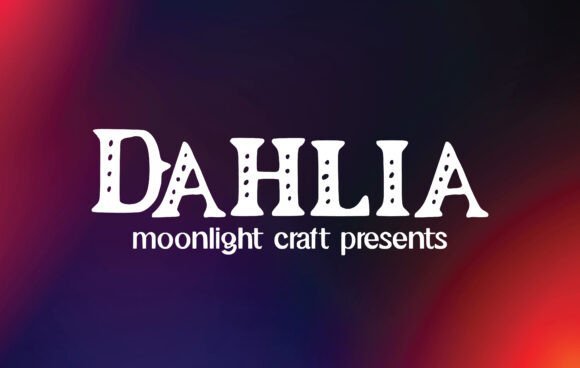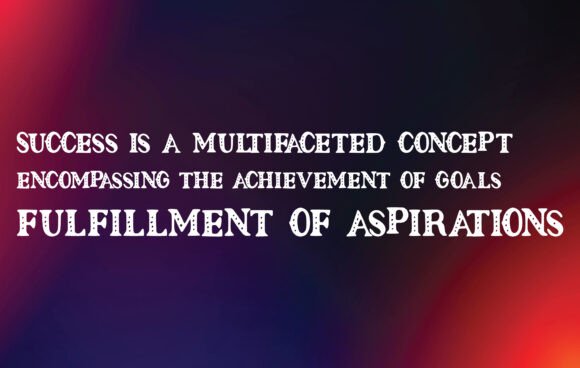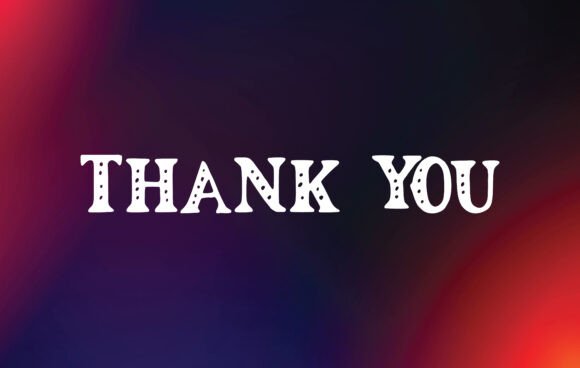
Meet Your New Creative Companion: Dahlia Font
Have you ever stared at a blank page, waiting for the perfect font to bring your design to life? We’ve all been there. The frustration of scrolling through font options, hoping to find the one that perfectly captures your creative vision. But what if we told you that your search is over?
Introducing Dahlia Font, the ultimate go-to font for designers. This versatile and eye-catching font is designed to be clear and easy to read, making it perfect for both titles and body text. Whether you’re designing a magazine cover, a t-shirt, or a wedding invitation, Dahlia Font is the perfect companion to bring your creative ideas to life.
As a designer, you know how valuable it is to have a reliable font that can elevate your designs. That’s where Dahlia Font comes in – a game-changing font that’s sure to become your new favorite. With its unique style and personality, Dahlia Font is the perfect addition to your design toolkit.
Dahlia Font Key Features
- Unique Characteristics: This font features a unique blend of elegance and sophistication, with intricate details and ornate flourishes that set it apart from other fonts.
- Legibility: Dahlia Font is designed to be highly legible, even at small font sizes, making it an excellent choice for body text and captions.
- Font Style: Dahlia Font comes in a range of styles, including Regular, Italic, Bold, and Bold Italic, allowing designers to create visually appealing combinations and contrast.
Dahlia Font Review
I recently had the chance to work with the Dahlia font, and I must say it’s a unique and intriguing addition to any design project. Here’s my honest take on this font.
Beautiful Hand-Drawn Style: The Dahlia font has a charming, hand-drawn quality to it, making it perfect for projects that require a touch of personality and whimsy.
High-Quality Typography: The font is well-designed and well-crafted, with clear and readable letterforms that make it easy to use in a variety of contexts.
Flexible Application: Dahlia can be used in a range of projects, from body text to headings, and even as a decorative element in designs.
Limited Character Set: While the font is beautiful, its character set is somewhat limited, which may not be ideal for projects that require a wide range of special characters or accents.
Not Ideal for Small Text: Due to its hand-drawn nature, Dahlia may not be the best choice for small text sizes, as the letterforms can become difficult to read.
Overall, I think the Dahlia font is a great choice for designers looking to add some personality to their projects. While it may have some limitations, its unique style and high-quality typography make it a great addition to any design toolkit.
The Dahlia font is ideal for creating elegant and sophisticated designs. It’s commonly used for:
– Luxury branding and marketing materials
– High-end product packaging and labels
Getting the Most Out of Dahlia
To get the most out of the Dahlia font, try pairing it with other elegant fonts and using it in combination with bold graphics and textures. Experiment with different font sizes and styles to create a unique and eye-catching design.
Alternatives to Dahlia Font for Designers
Carolyna Pro is a modern script font with elegant and sophisticated lines. It is ideal for creating invitations, wedding stationery, and other high-end designs. This font has a similar feel to Dahlia Font, but with a more refined and polished look.
Comparison: Carolyna Pro is more polished and refined compared to Dahlia Font, making it suitable for high-end designs. Dahlia Font, on the other hand, has a more playful and whimsical feel.
Luxurious Script
Luxurious Script is a luxurious and elegant script font perfect for creating luxurious designs such as high-end fashion magazines, luxury packaging, and premium branding. This font has a similar level of sophistication as Dahlia Font but with a more dramatic flair.